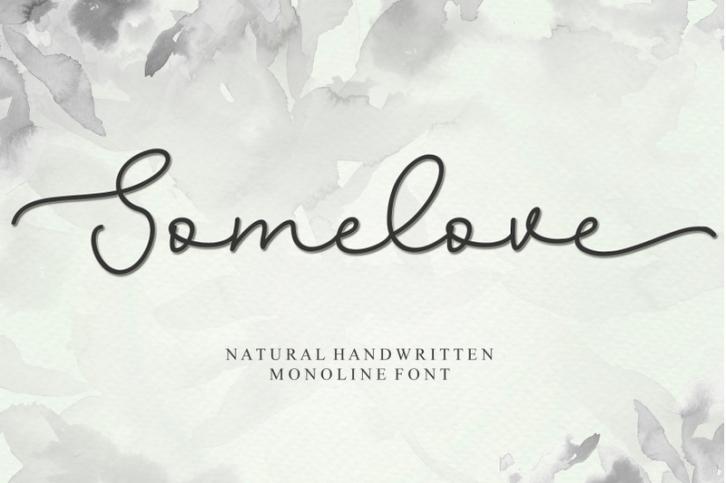
Somelove - Handwritten Font Download
Somelove is a simple and flowing handwritten font. This adaptable font will look great on a variety of design ideas. It will add a fun and friendly touch to each of your projects!